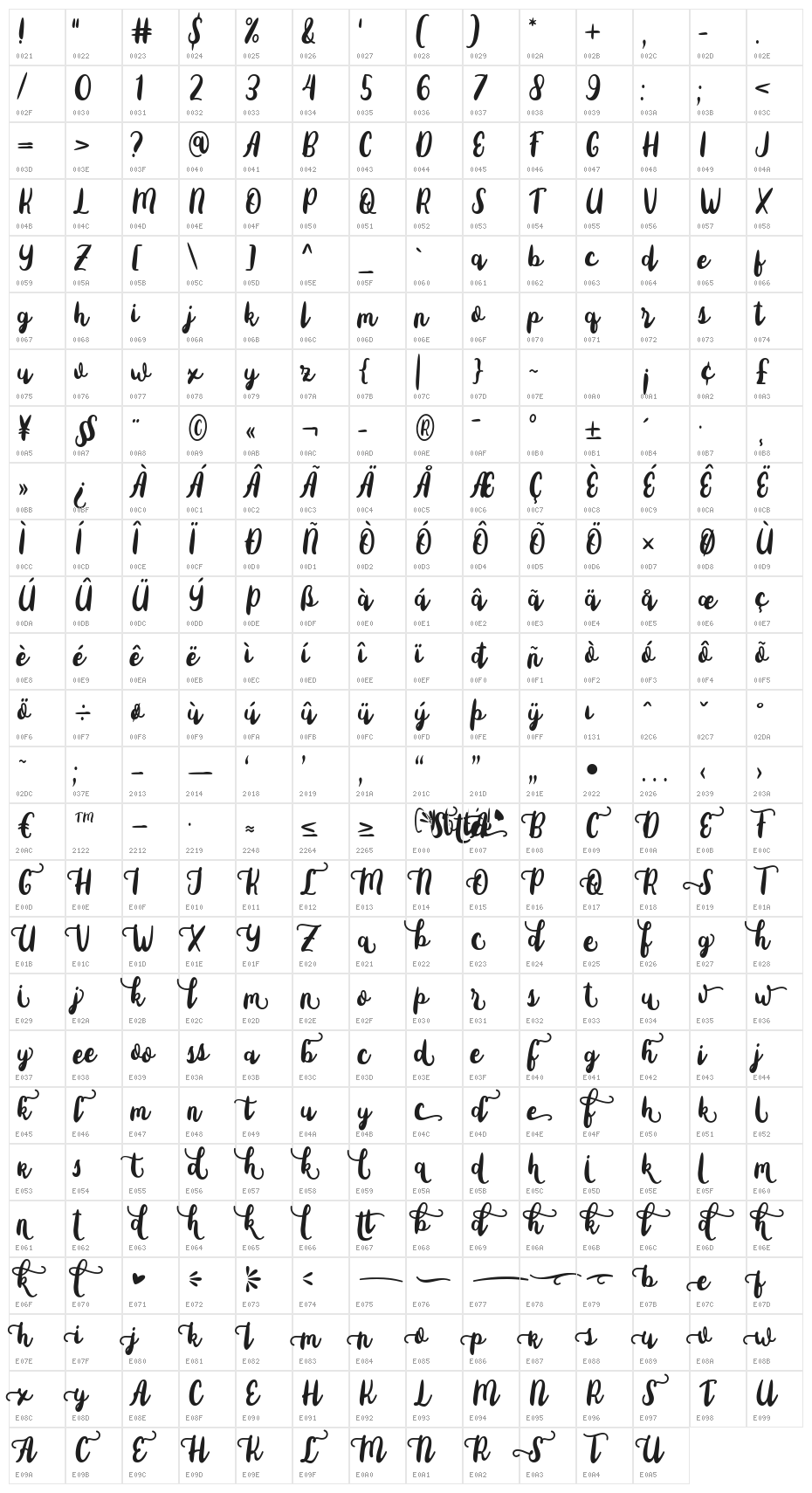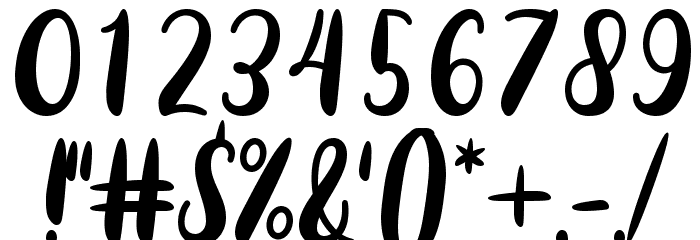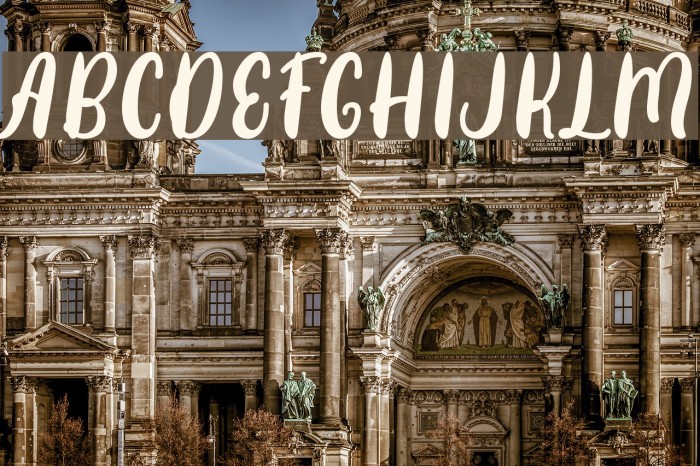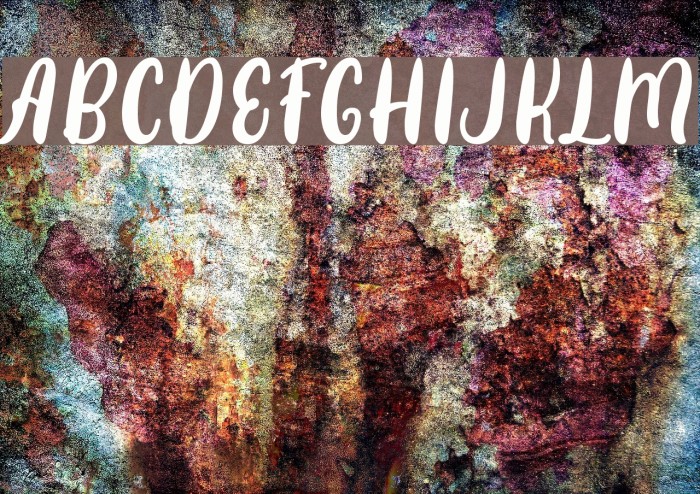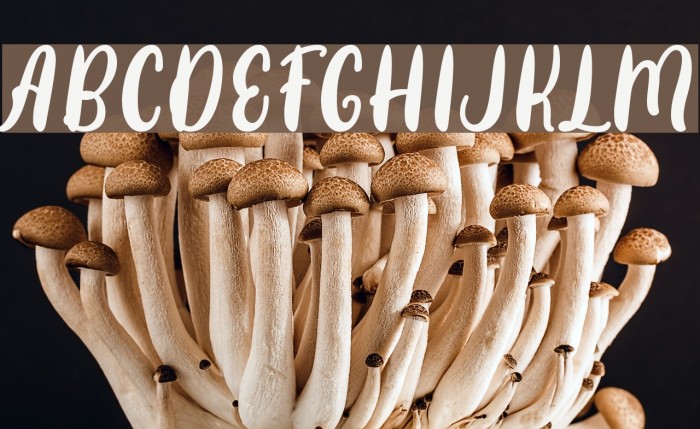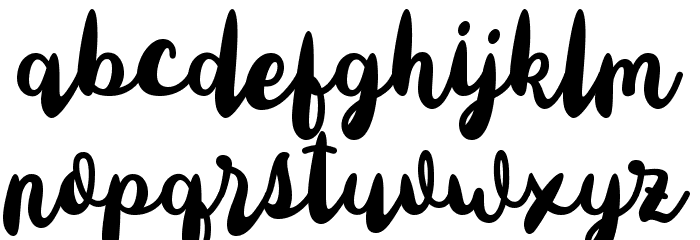
Sottee Font
Sottee Description
This font exhibits a playful and energetic script style with a handwritten appearance. The letters are bold and slightly slanted, giving a sense of movement and dynamism. The uppercase characters are distinct and well-defined, while the lowercase letters maintain a consistent flow, enhancing readability. The numbers are rounded and complement the overall style, adding to the font's charm. Special characters are creatively integrated, maintaining the font's cohesive look. The strokes are thick, providing a strong visual impact, and the overall design is both modern and approachable, making it suitable for a variety of creative applications.
| Proposed Projects | Ideal for branding, invitations, greeting cards, and social media graphics. |